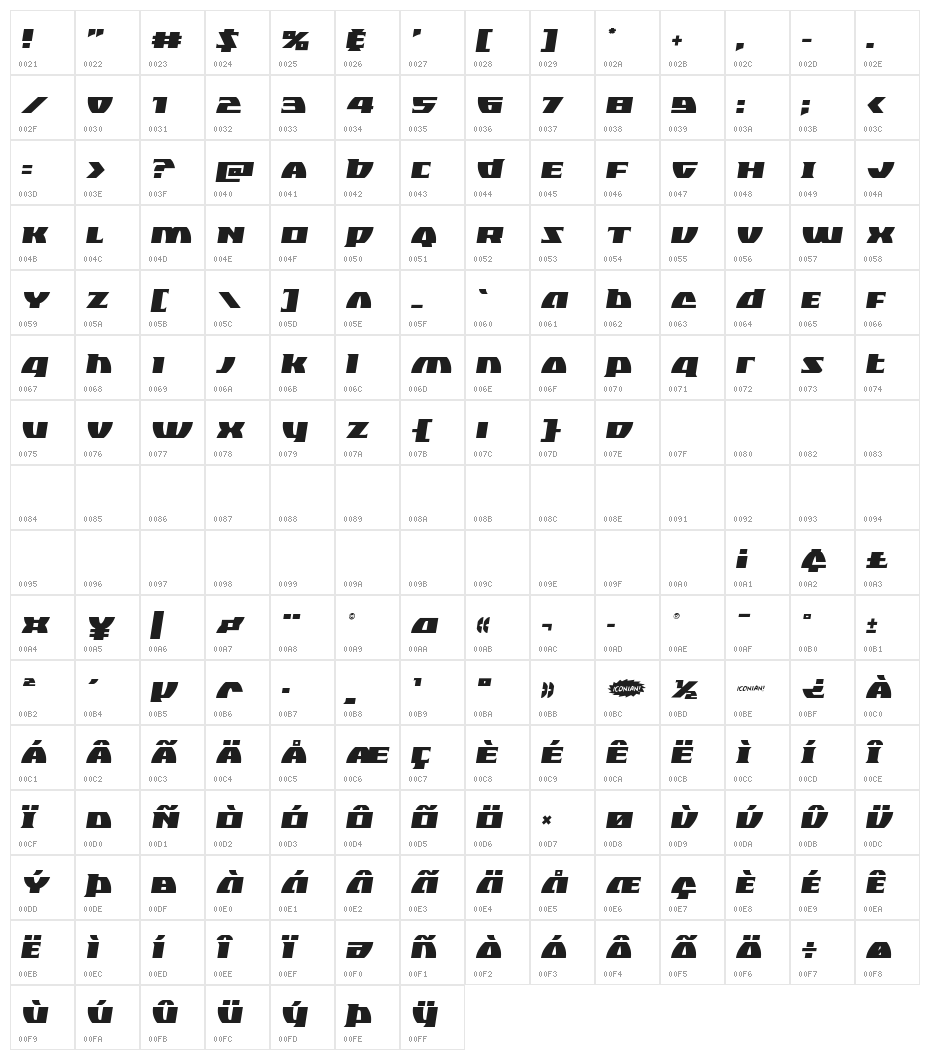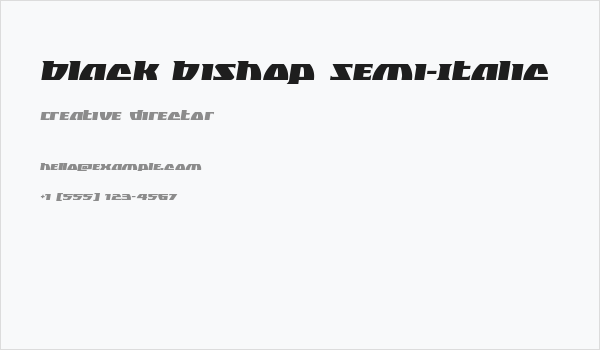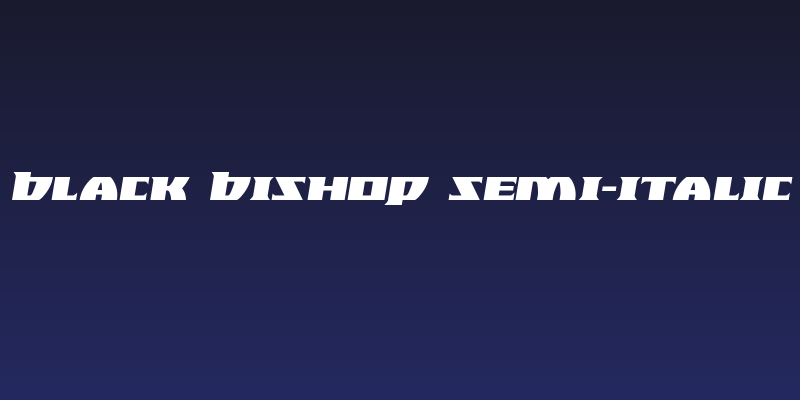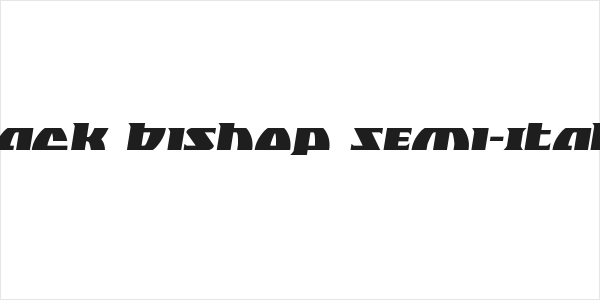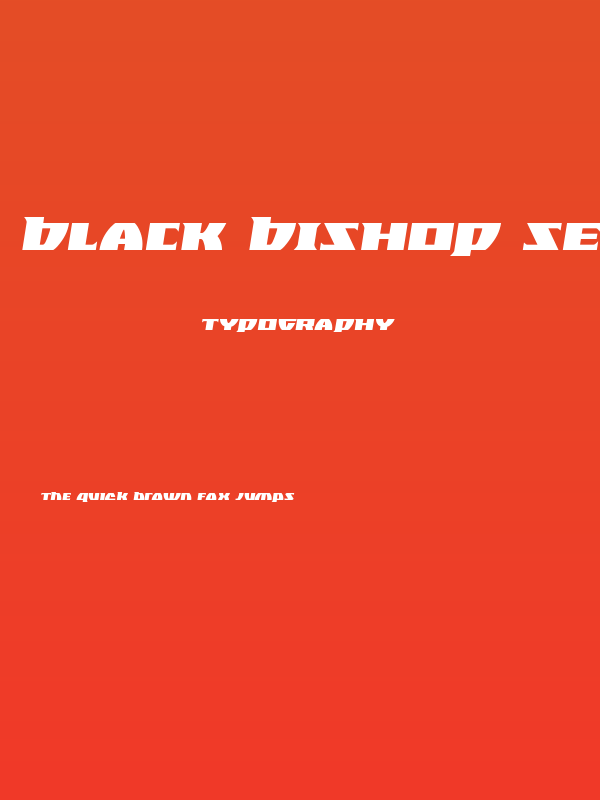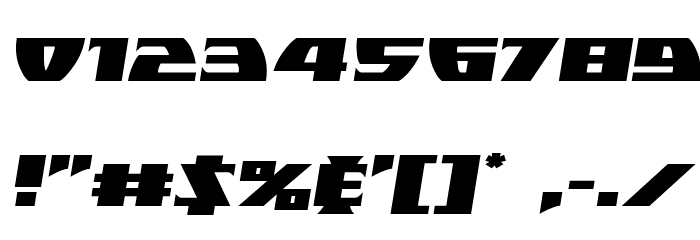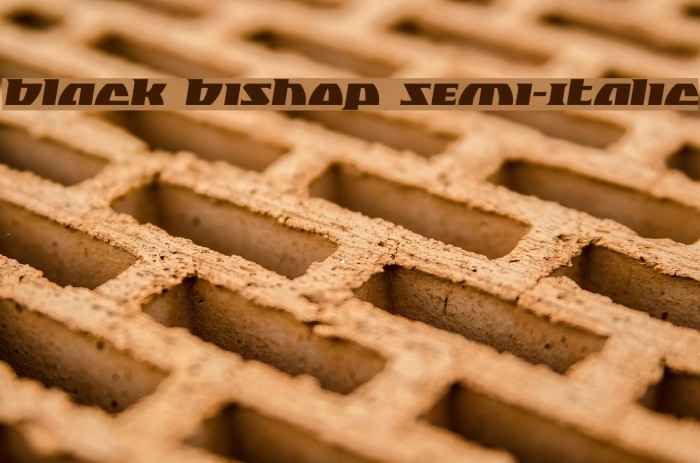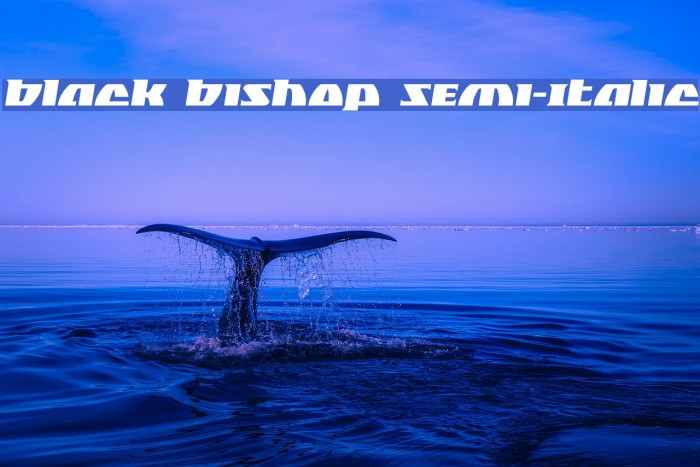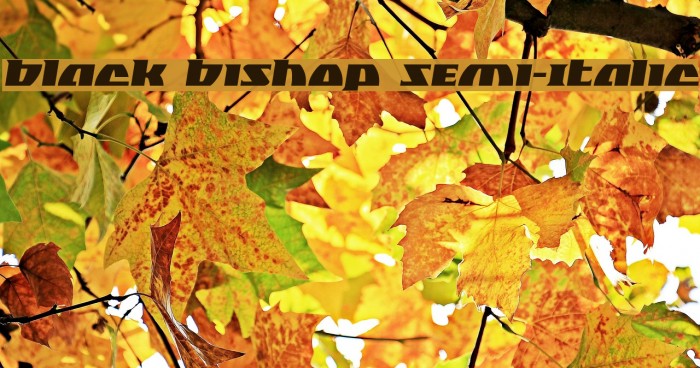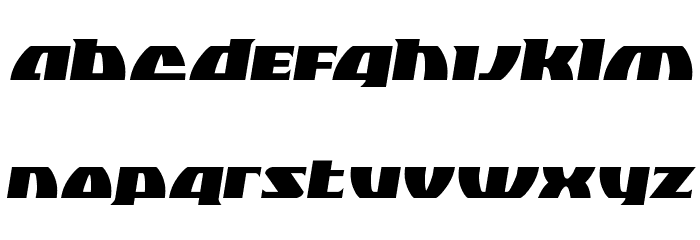
Black Bishop Semi-Italic Font
Black Bishop Semi-Italic Description
This font features a bold and dynamic style with a semi-italic slant, giving it a sense of movement and energy. The characters are designed with sharp angles and a strong geometric influence, creating a modern and assertive appearance. The uppercase and lowercase letters maintain a consistent style, with the lowercase slightly more condensed. The numerals and special characters follow the same bold and angular design, ensuring uniformity across all glyphs. This font's unique style makes it ideal for projects that require a strong visual impact.
| Proposed Projects | Ideal for branding, posters, headlines, and any design that requires a strong, impactful font. |